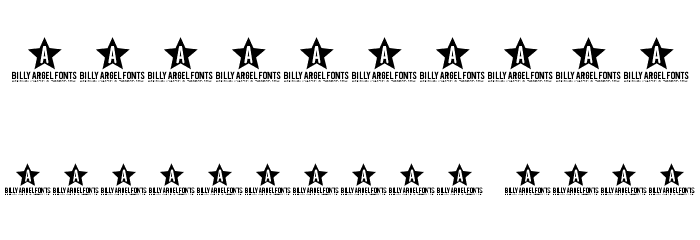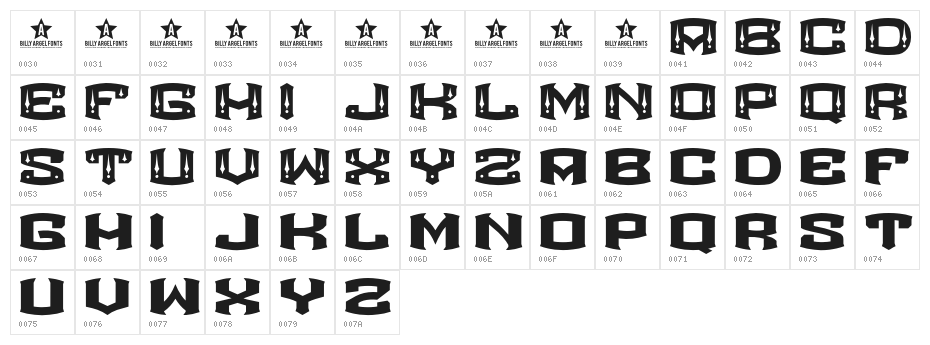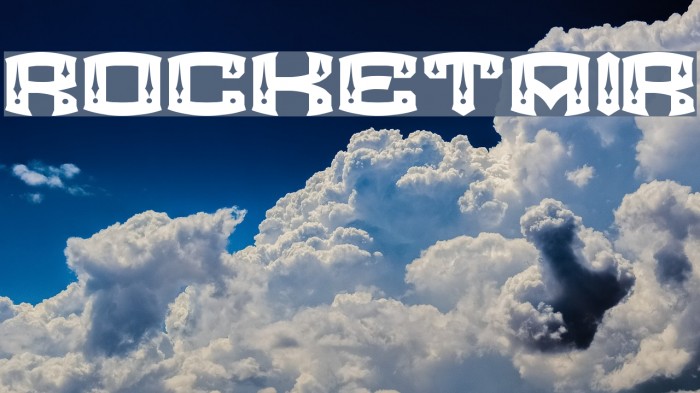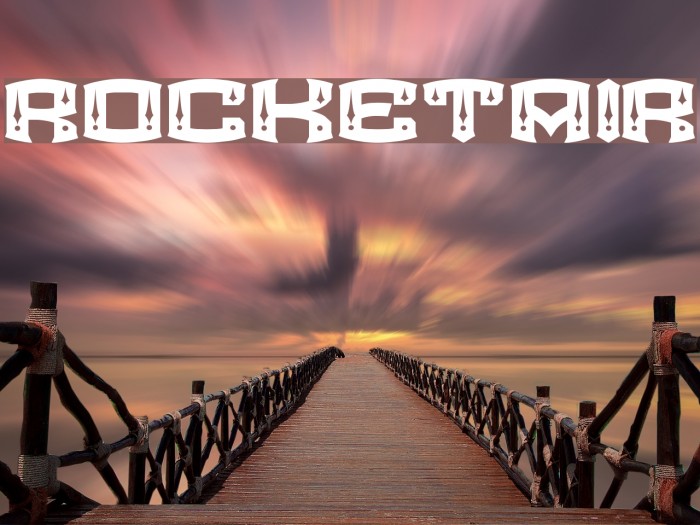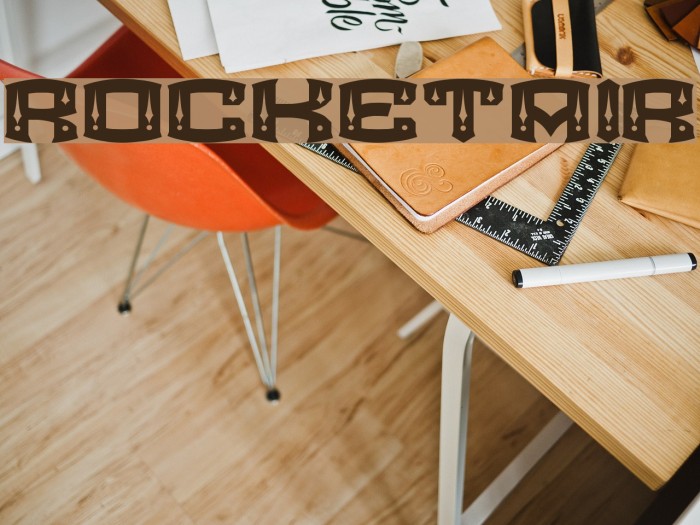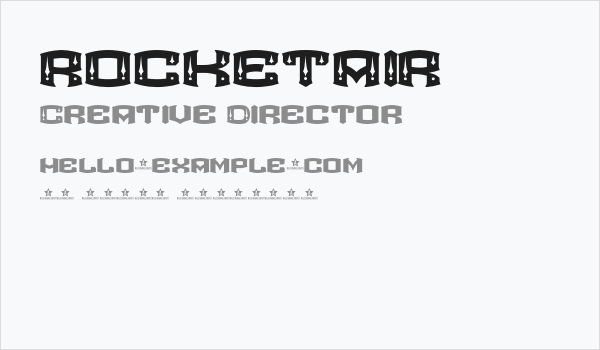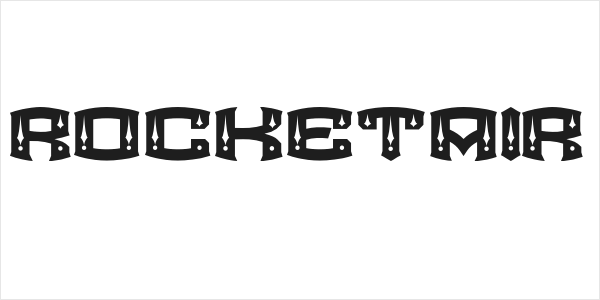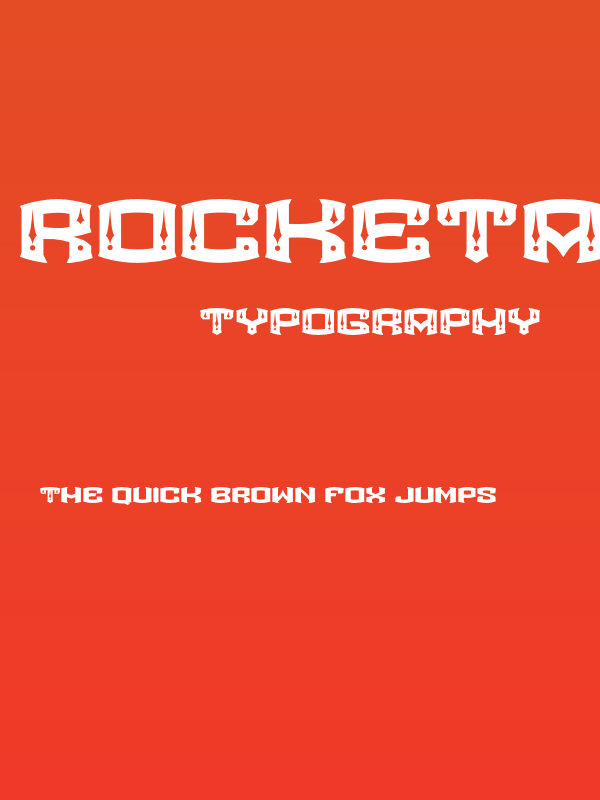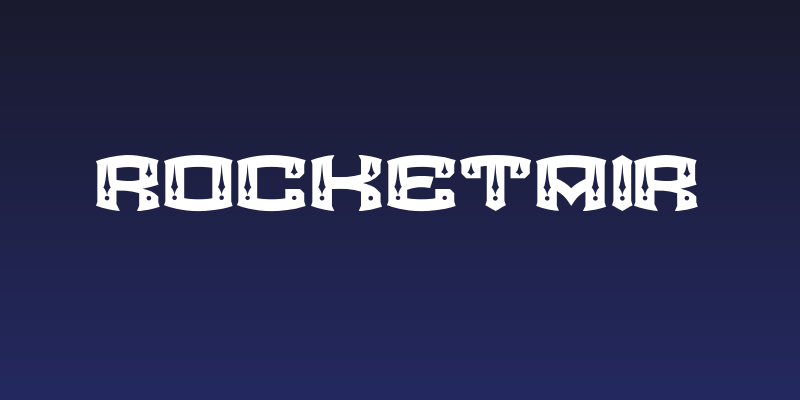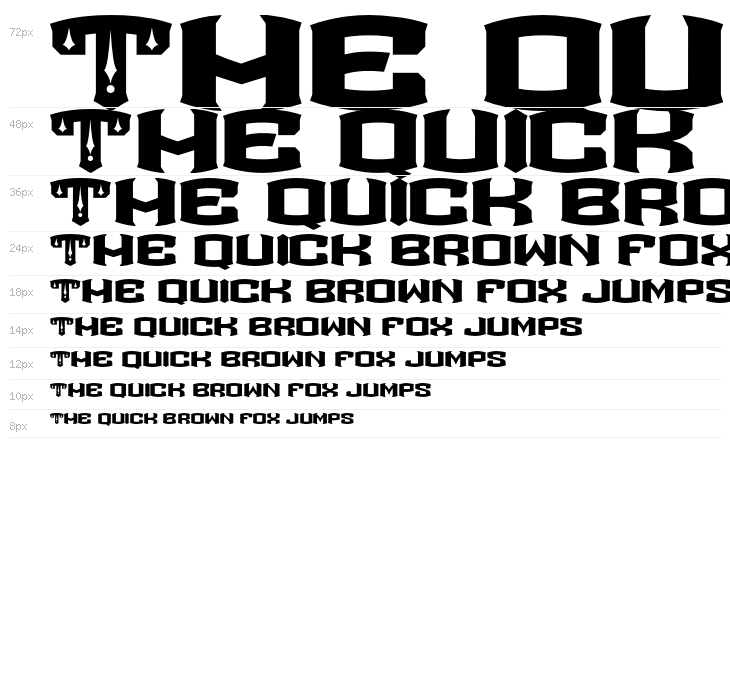
ROCKETAIR Font
ROCKETAIR Description
This font features a bold and dynamic style with a distinct futuristic and industrial feel. The uppercase letters are characterized by sharp angles and geometric shapes, giving them a strong and impactful appearance. The design incorporates unique cut-out elements within the characters, adding a sense of depth and complexity. The font maintains a consistent weight throughout, ensuring readability while still offering a decorative flair. Its bold nature makes it suitable for attention-grabbing headlines and logos, where a modern and edgy aesthetic is desired.
| Proposed Projects | Ideal for sci-fi themed posters, video game titles, tech company logos, and modern branding projects. |